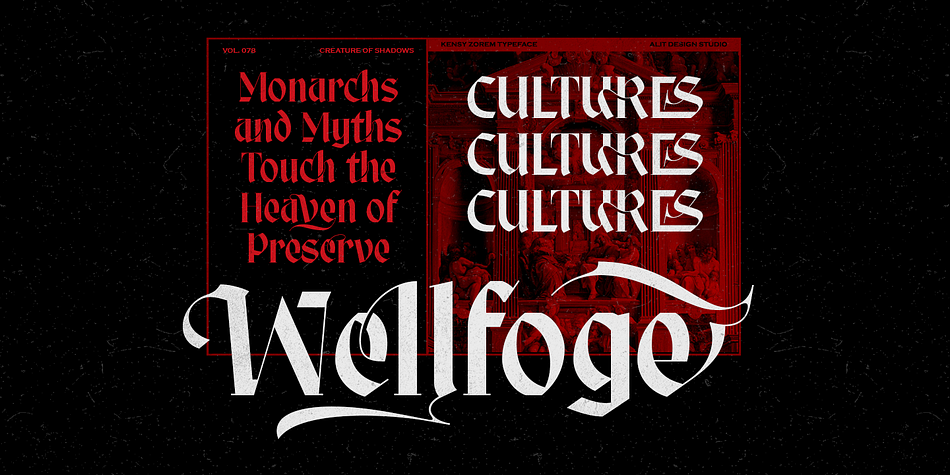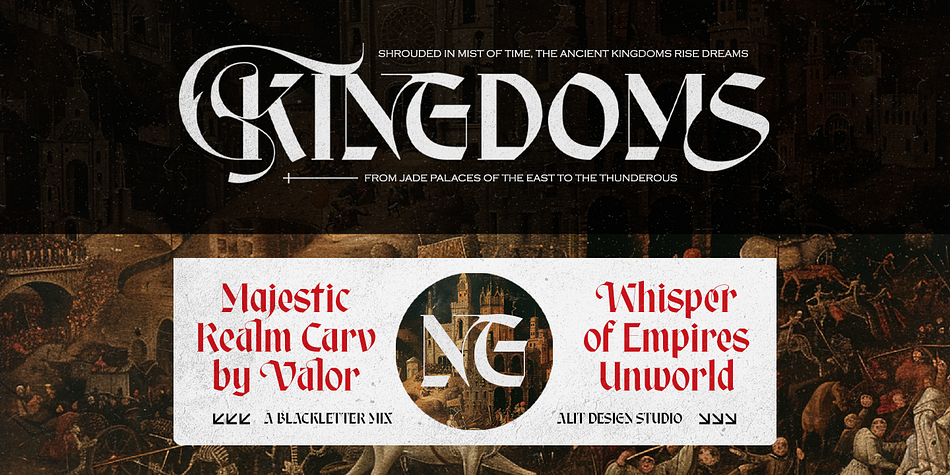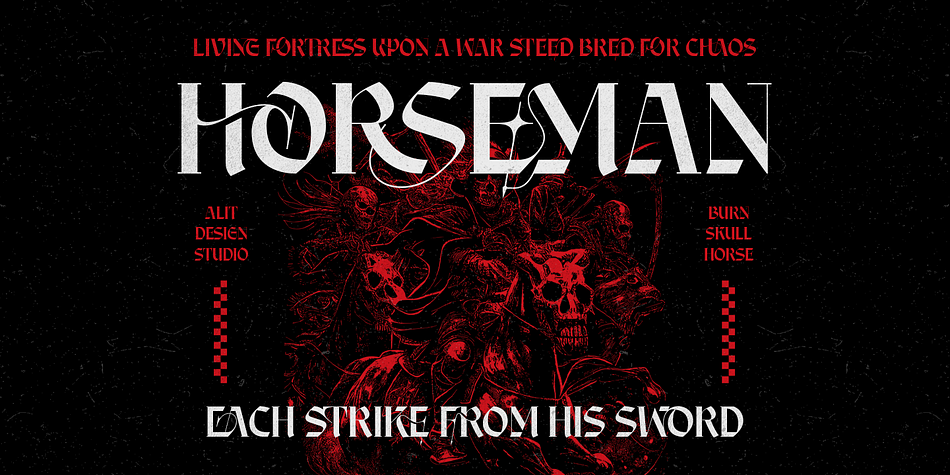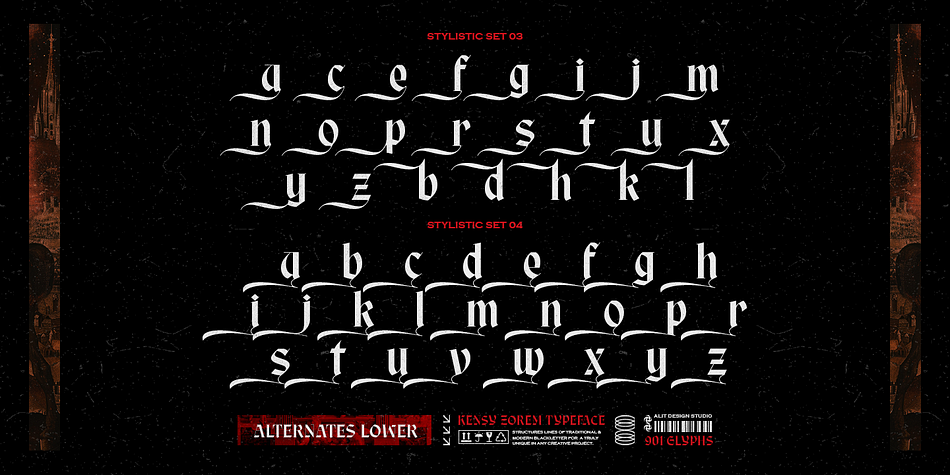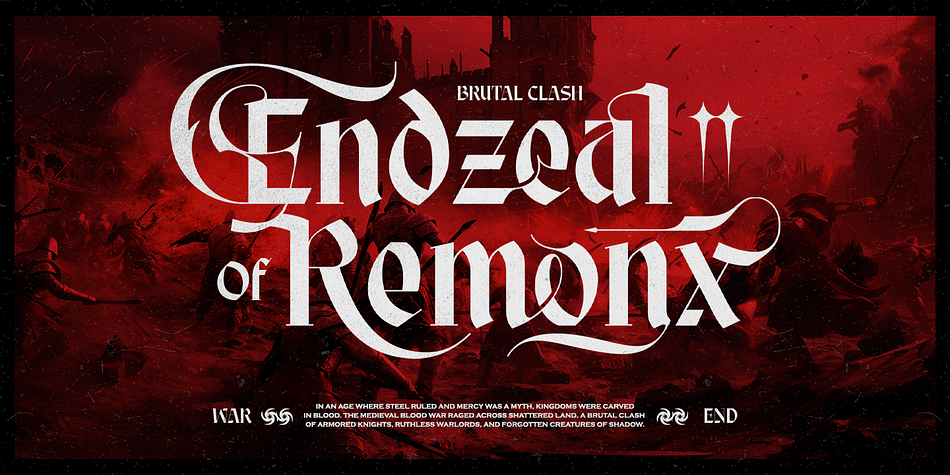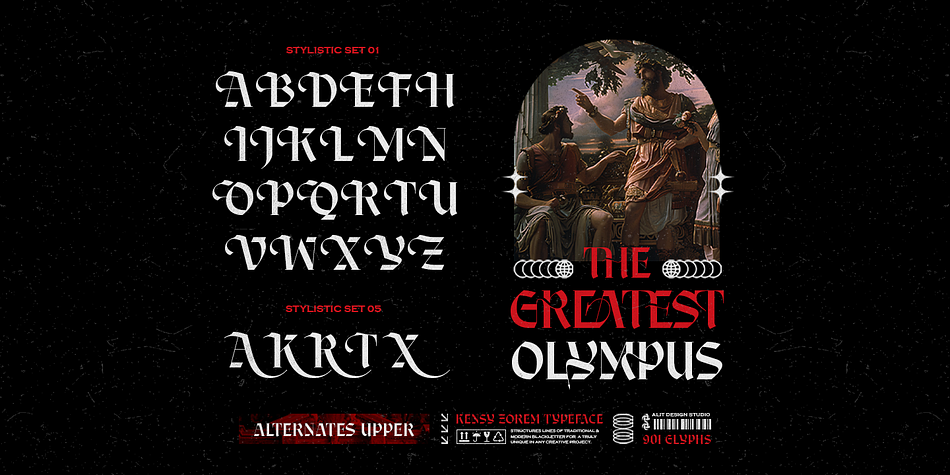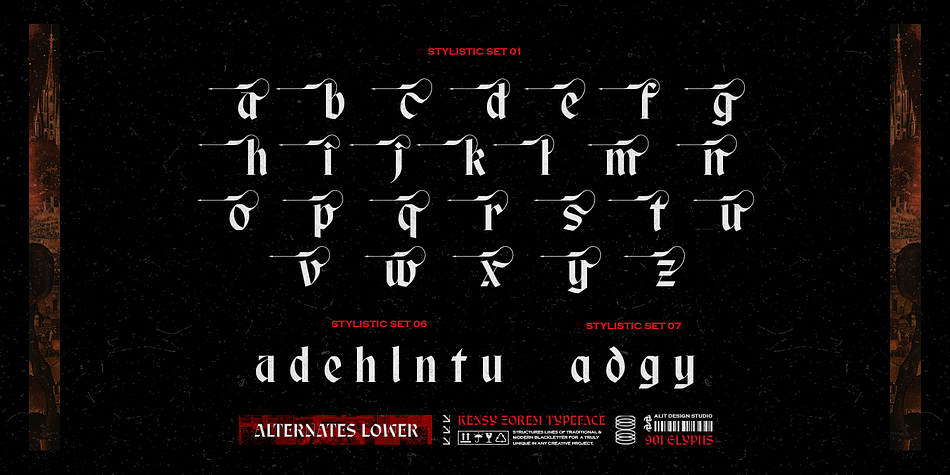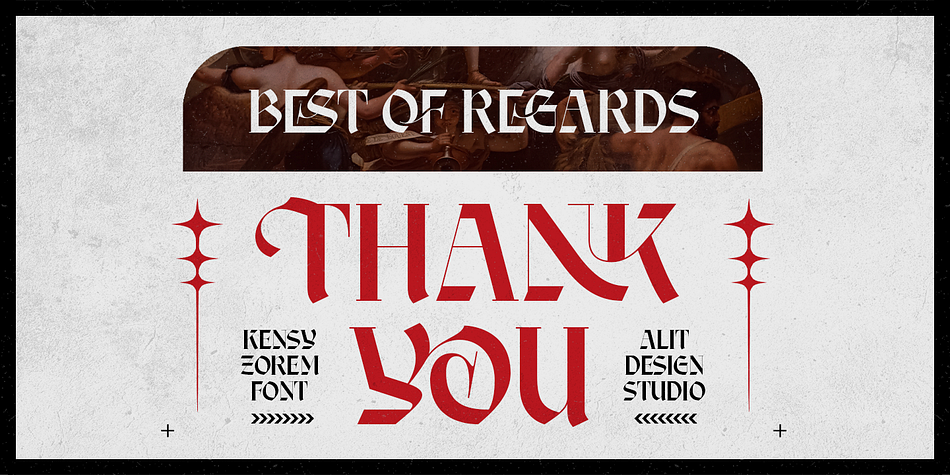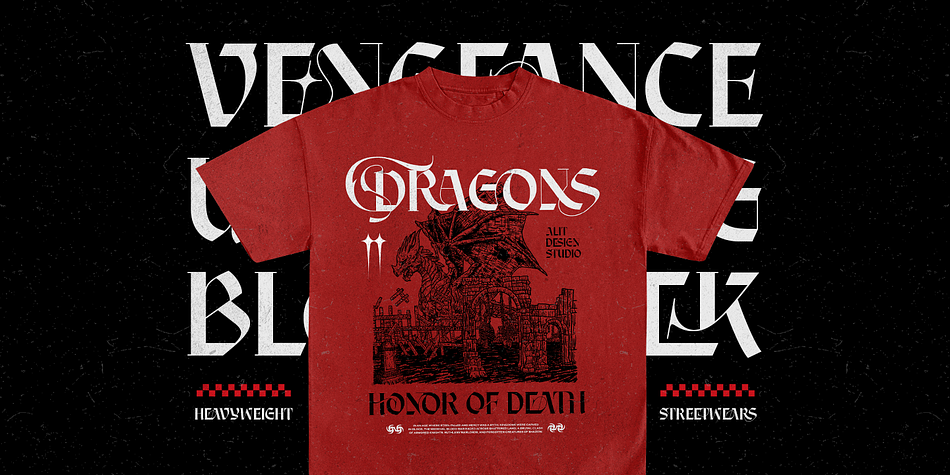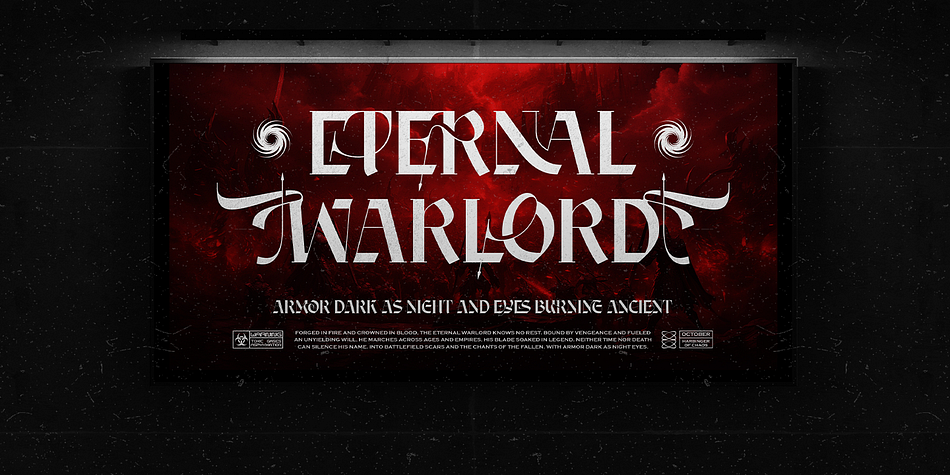
Kensy Zorem Typeface – A Blackletter & Modern Serif Fusion
A Typeface That Commands Attention
Kensy Zorem is a bold and expressive typeface that merges the ornate intricacies of blackletter with the clean elegance of modern serif design. This hybrid creation is built for creatives who want to make a powerful visual impact—bridging the gap between historical gravitas and contemporary edge.
Crafted by Alit Design Studio, Kensy Zorem brings a sense of epic drama and streetwise style, drawing inspiration from Roman heroism, mythological storytelling, and modern fashion graphics. Whether you’re designing for branding, apparel, editorial spreads, or digital campaigns, Kenzy Zorem adds a distinctive and rebellious flair.
✅ 901 Glyphs Total Includes uppercase, lowercase, numerals, punctuation, symbols, ligatures, and extended Latin multilingual characters.
✅ Uppercase & Lowercase Alphabets Carefully crafted letterforms that balance angular blackletter strokes with modern serif structure.
✅ Extensive Alternates & Ligatures Includes stylistic sets, swashes, and flourishes to create dynamic typography combinations.
✅ 5 Stylistic Sets Switch between clean, strong characters or embellished, expressive versions with ease.
✅ Multilingual Support Supports a wide range of Latin-based languages, making it versatile for international projects.
Kensy Zorem was designed with visual storytelling in mind. It works beautifully in projects that need a blend of regal power, gothic mystery, and urban modernism. The font’s structure allows for flexibility in tone—from classical elegance to street-culture boldness.
Ideal for:
Logos & Branding (luxury, gothic, fashion, music, streetwear)
Editorial Design (magazine titles, book covers, headlines)
Packaging & Posters (alcohol, perfume, tech products)
Social Media Graphics
Tattoo Designs & Signage
Merch & Apparel
✦ Design Highlights:
⚔️ Stylized uppercase characters evoke the grandeur of Roman capitals with futuristic flare.
✒️ Alternate glyphs bring a custom look to each word—ideal for logos and standout titles.
???? Modern blackletter mix gives your typography a voice that’s loud, confident, and undeniably unique.
???? Multilingual support expands your global design reach.
All standard characters (A–Z, a–z, 0–9)
Punctuation & Symbols
Alternate glyph sets (Stylistic Sets 01–05)
Decorative elements & ligatures
Multilingual accents
Kensy Zorem Typeface is more than just a font—it’s a typographic experience. Designed to bring a bold, heroic personality to your designs, it seamlessly blends old-world craftsmanship with modern visual culture. Whether you’re aiming for gothic luxury or a sharp, contemporary brand identity, Kensy Zorem delivers drama, style, and versatility.
✨ Let your designs echo with the spirit of ancient power and modern rebellion.